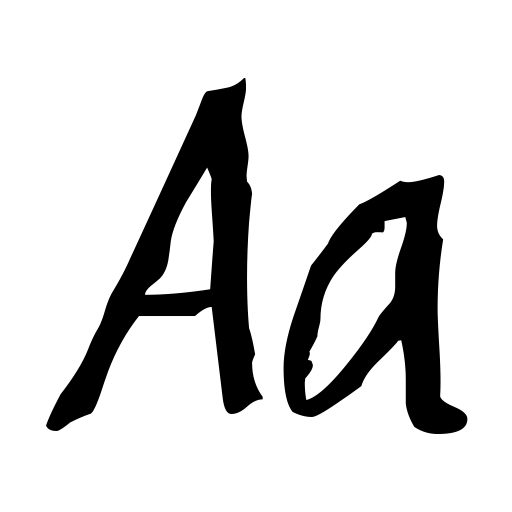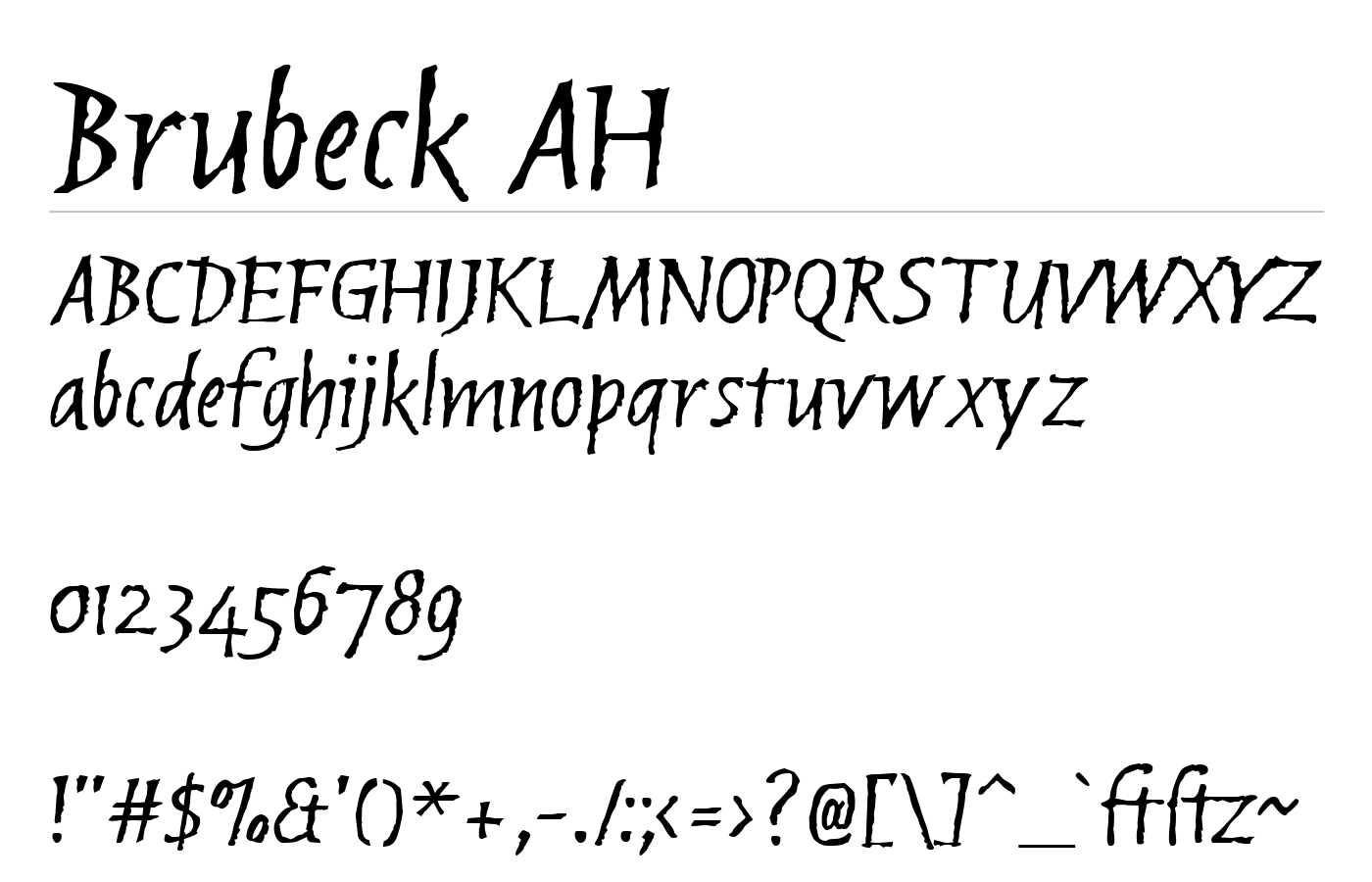
Brubeck AH is a distinctive serif font with a hand-crafted, calligraphic style that combines elegance with a slightly rough, organic texture. Its moderate contrast and irregular strokes give it a unique, artistic personality, making it well-suited for creative projects, branding, and headlines where a touch of character and individuality is desired. This font works especially well in designs that aim to convey a vintage or artisanal feel without sacrificing readability.
Brubeck AH Font
About Brubeck AH Font
| Designer | Andreas Höfeld |